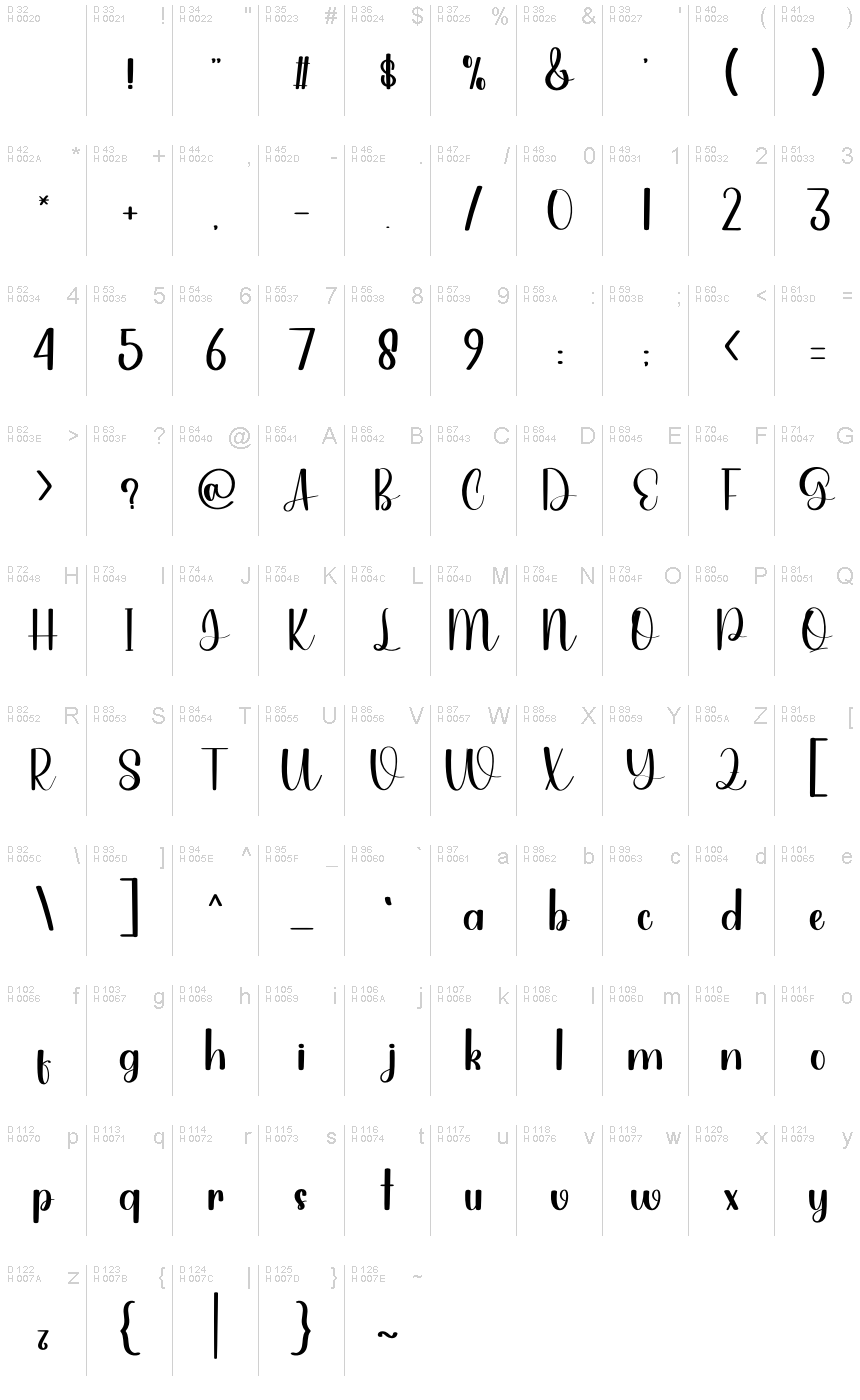
Stylish Handmade
Stylish Handmade, crafted by PiPi Creative, embodies a blend of casual elegance and artisanal flair. This handwritten font, with its semi-condensed width, offers an intimate yet sophisticated vibe that captures the essence of personal touch in each curve and line. The organic flow of the characters provides a balance between legibility and ornamental grace, making it an excellent choice for designers seeking to infuse warmth and authenticity into their projects.
Its aesthetic appeal lies in the illusion of bespoke craftsmanship that it lends to any creative work. Perfect for invitations, branding, or editorial designs where personality is key—Stylish Handmade stands out as both versatile and visually engaging. Its unique style bridges the gap between traditional handwriting and contemporary design needs. Whether it's gracing the pages of a boutique magazine or adding character to personalized stationery, Stylish Handmade is poised to elevate your project with its distinct charm.